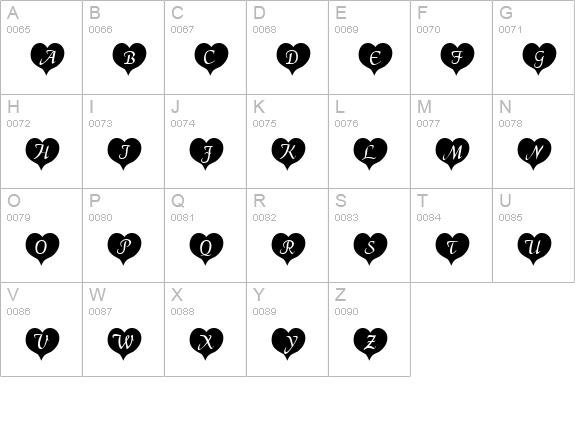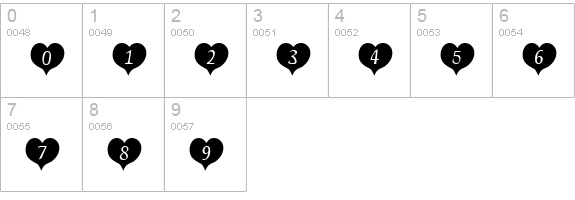
HeartBlack Becker Font Details
HeartBlack Becker is a stunning font that beautifully combines elegance with a touch of playfulness. With its bold and distinctive letterforms, this font is sure to make a statement in any design project. The sleek and modern design of HeartBlack Becker makes it perfect for a wide range of applications, from branding and advertising to packaging and signage. What sets HeartBlack Becker apart is not only its eye-catching design, but also the fact that it is available for free. Yes, that's right, you can freely download this amazing font at FontsMarket.com. Whether you are a professional designer or someone looking to add a unique touch to your personal projects, HeartBlack Becker is the ideal choice. The versatility of HeartBlack Becker is another reason why it has become a favorite among designers. It works well with both bold and subtle color palettes, and its clean lines and smooth curves ensure legibility in any size. Whether you want to create stunning headlines or elegant body text, HeartBlack Becker has got you covered. Furthermore, HeartBlack Becker is not just a font, but a tool that allows you to unleash your creativity. With its wide range of characters and glyphs, you have the freedom to experiment and create unique typographic compositions. From ligatures and alternates to special characters and symbols, HeartBlack Becker offers endless possibilities. So why wait? Download HeartBlack Becker for free today at FontsMarket.com and let your designs come to life with this remarkable font. Whether you are a professional designer or a typography enthusiast, HeartBlack Becker will surely become an invaluable asset in your creative arsenal. Don't miss out on this opportunity to add a touch of sophistication and style to your designs with HeartBlack Becker.